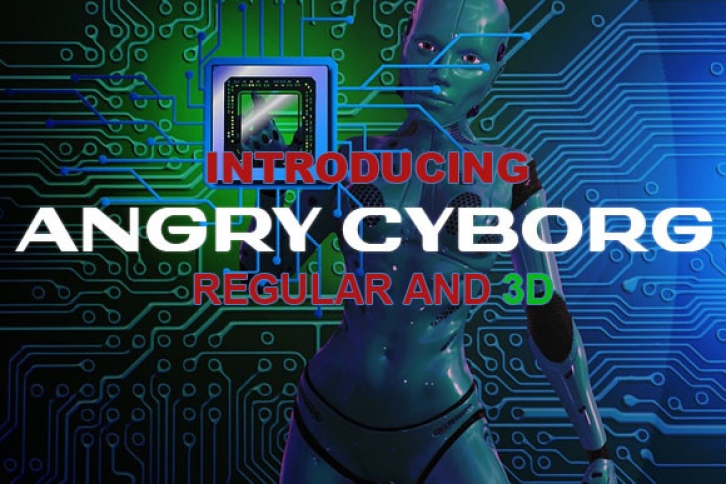
Angry Cyborg is awesome and techno inspired display typeface that comes in Regular and 3D variant.
Add this font to your futuristic projects and give them a superb stylish look.